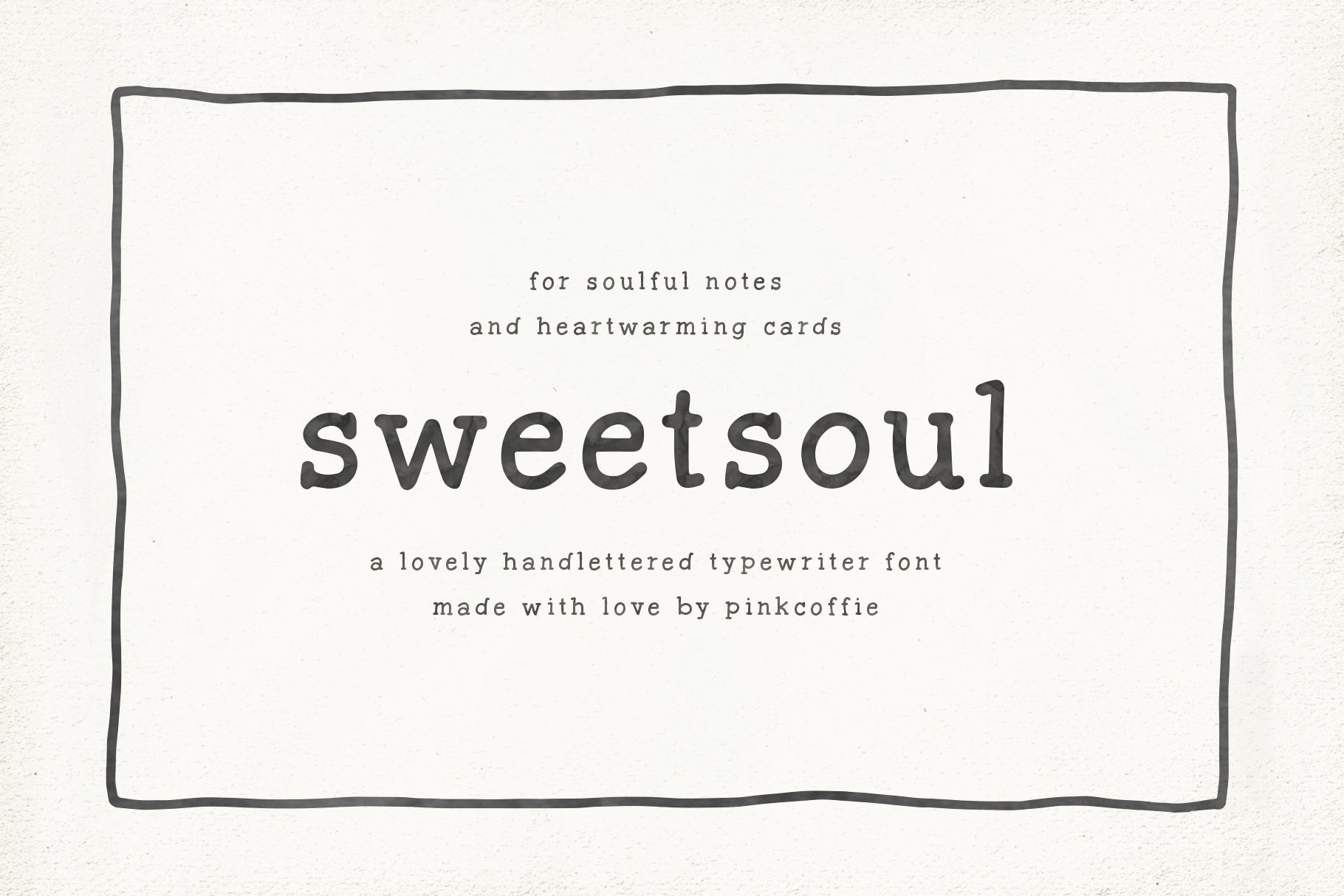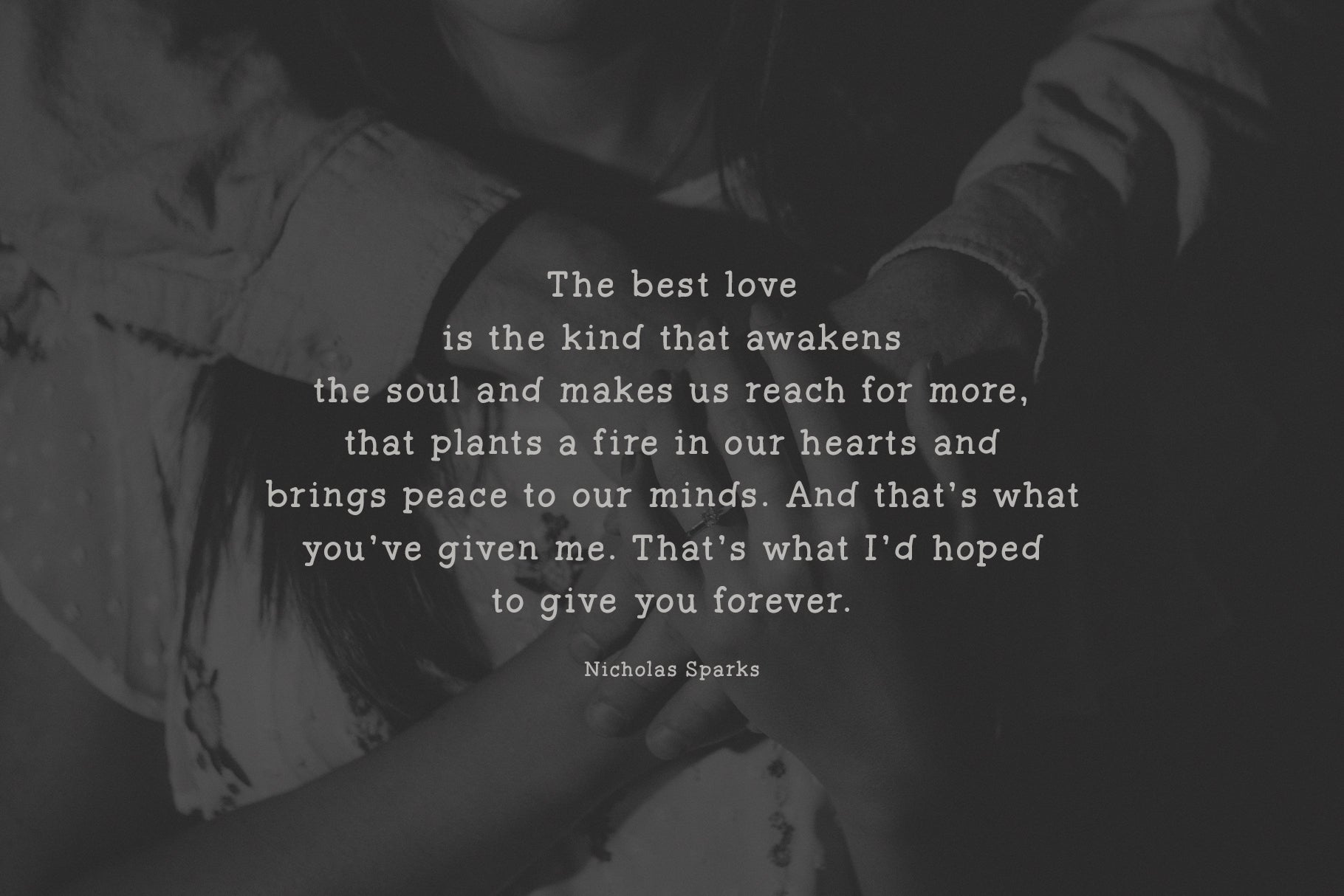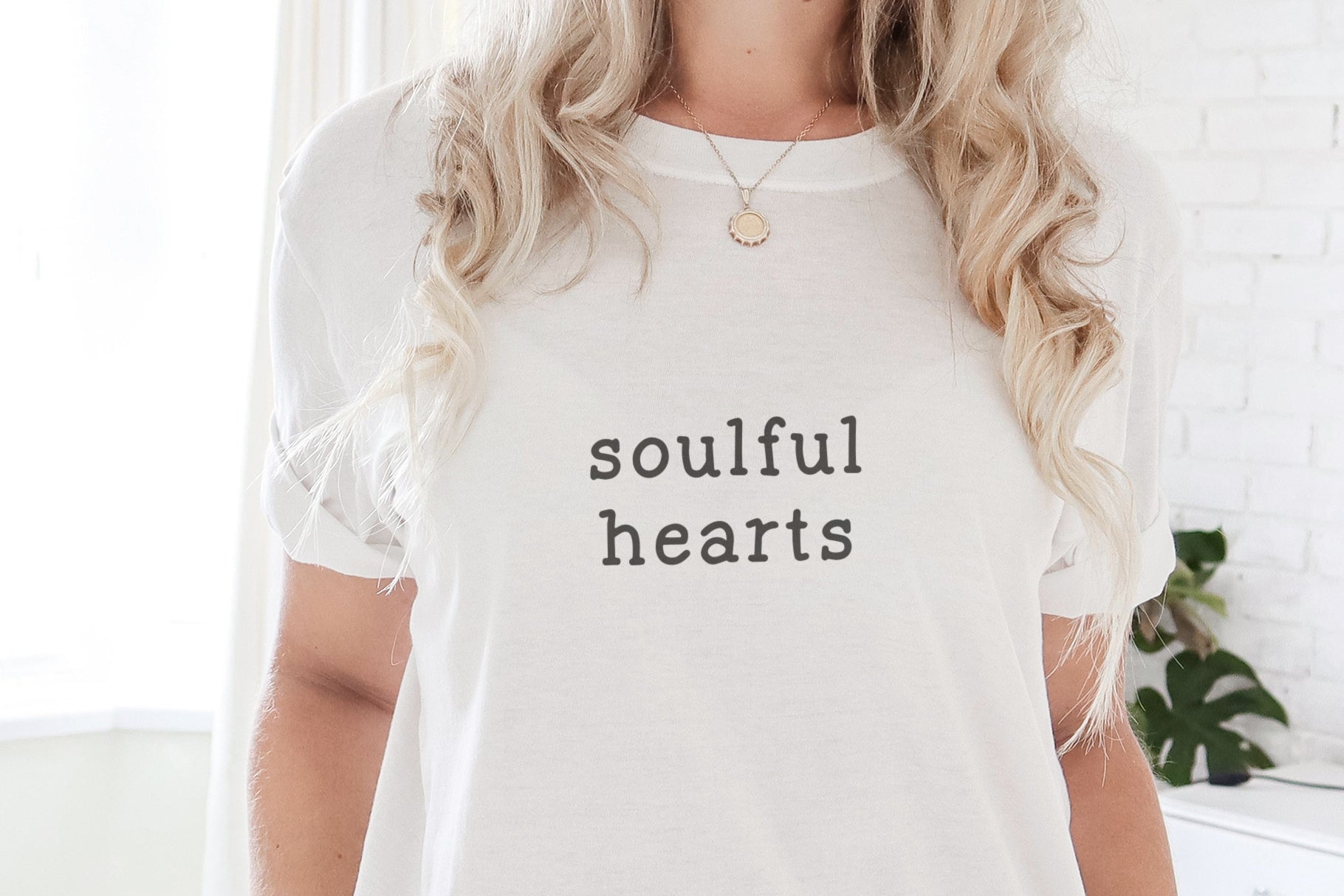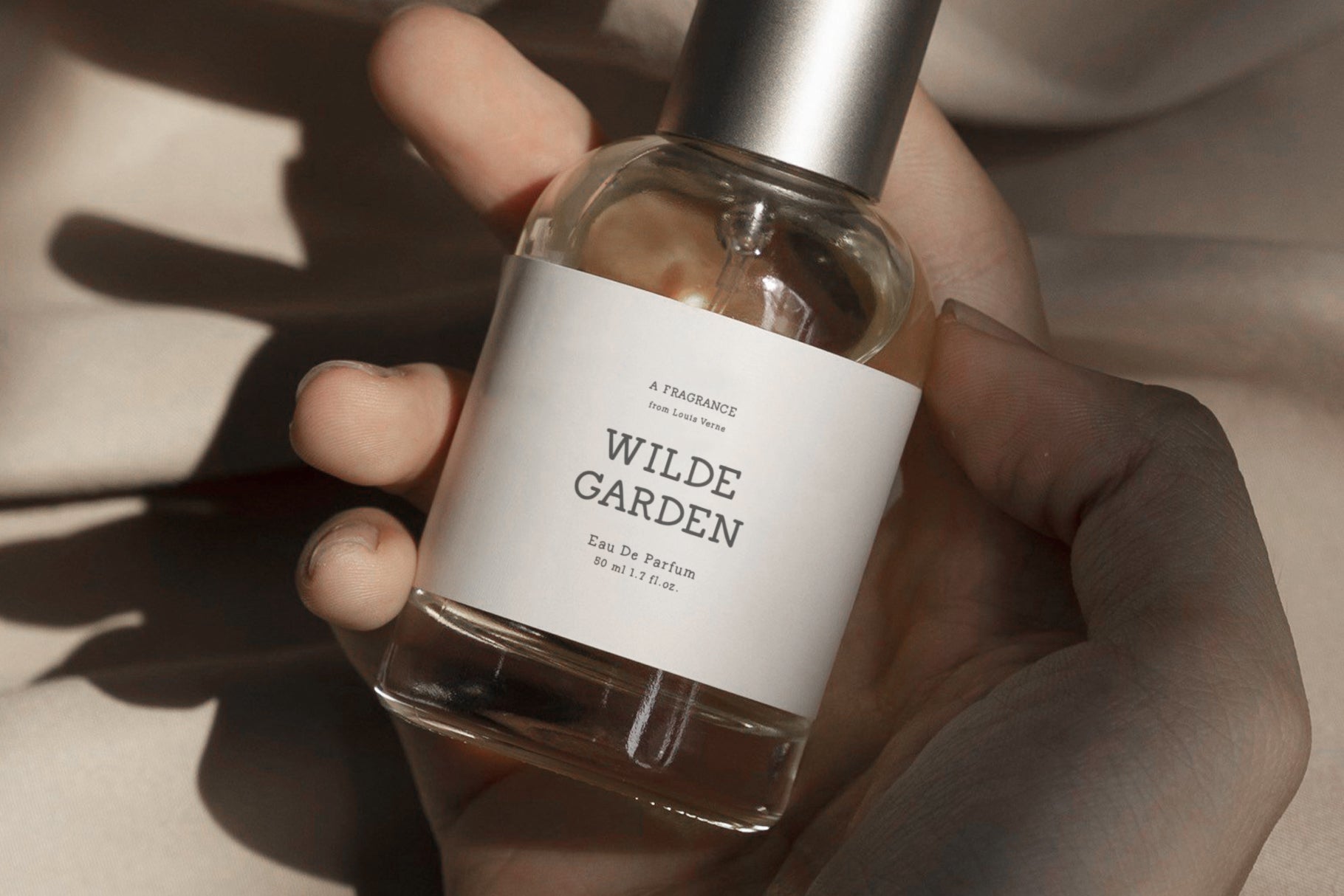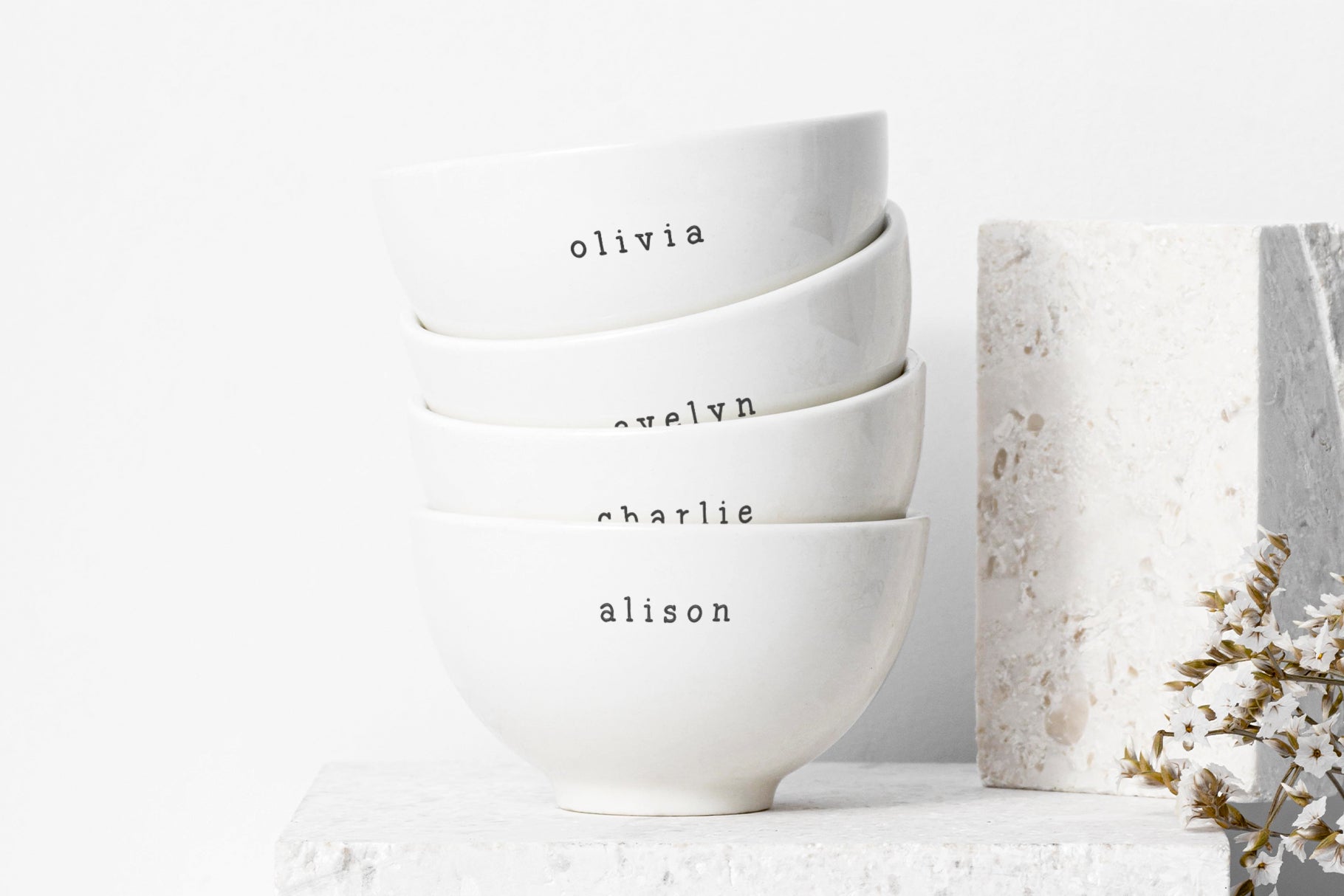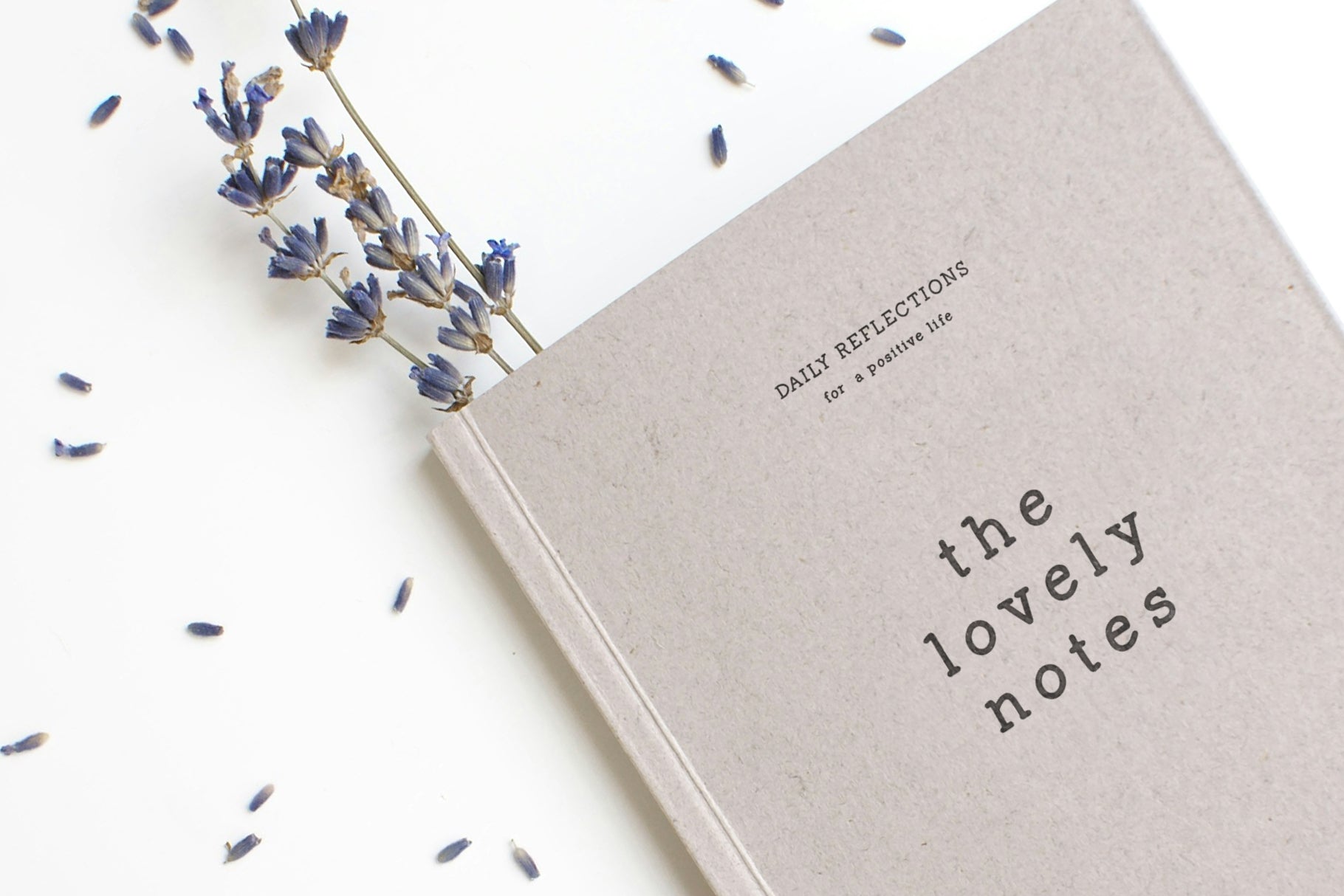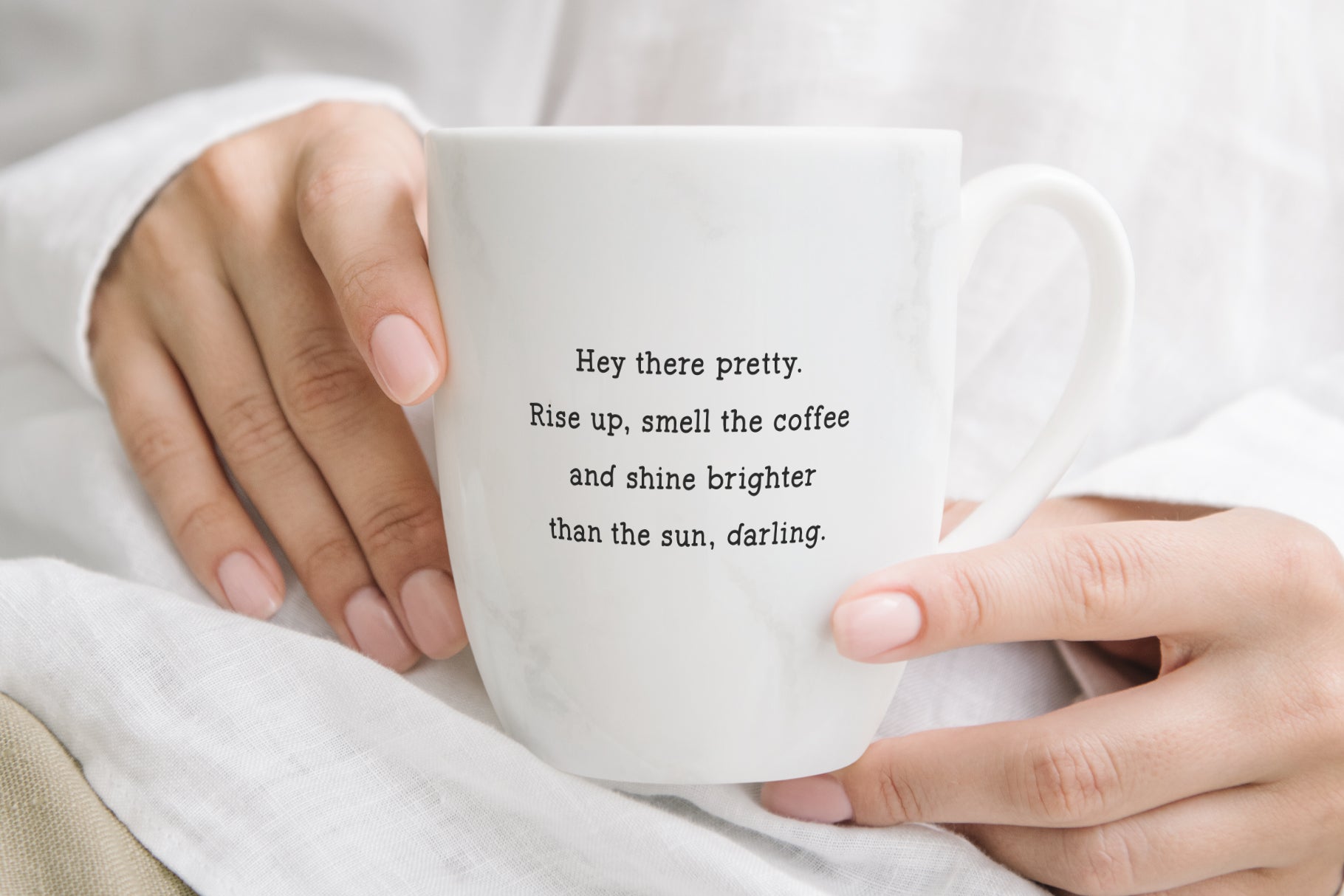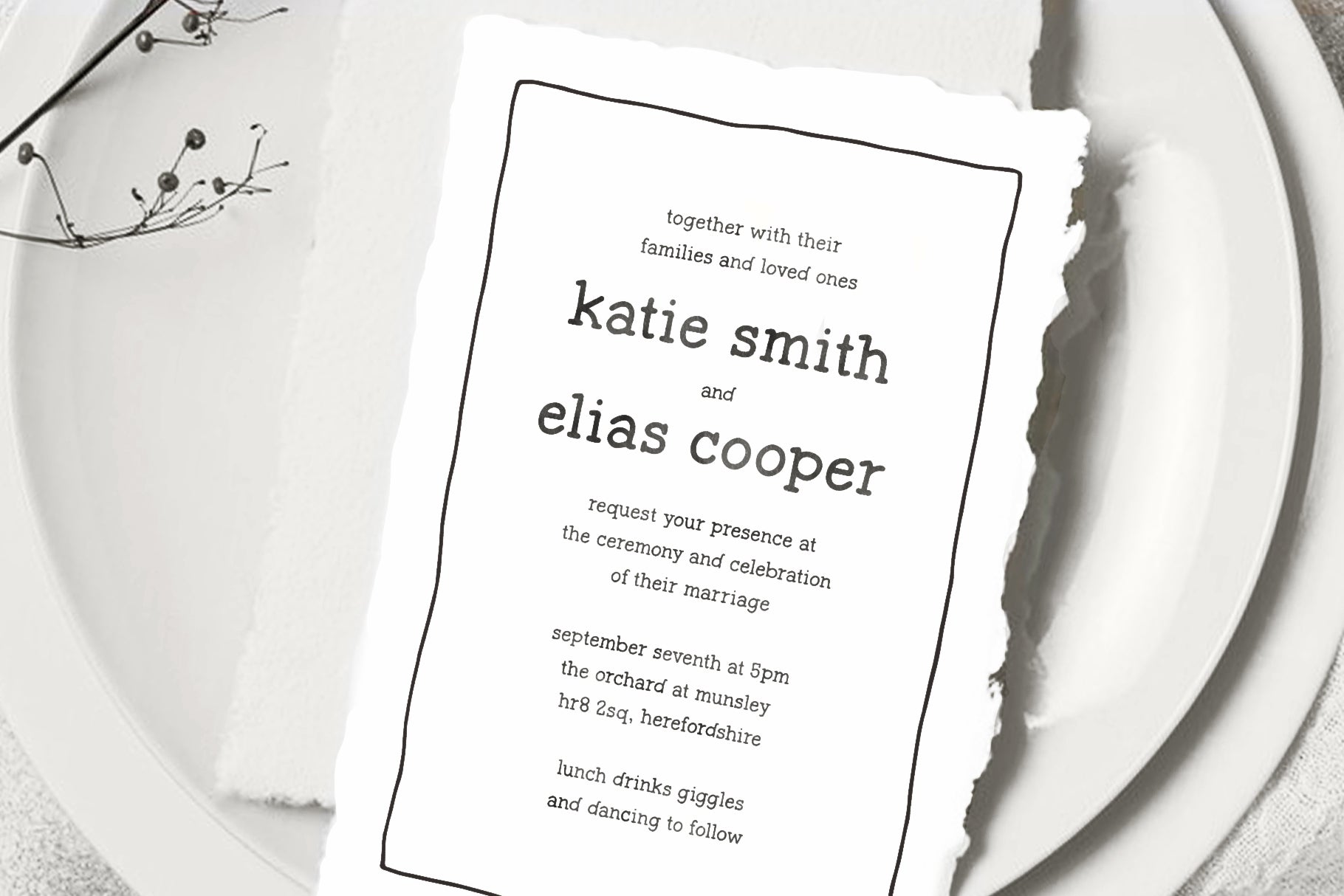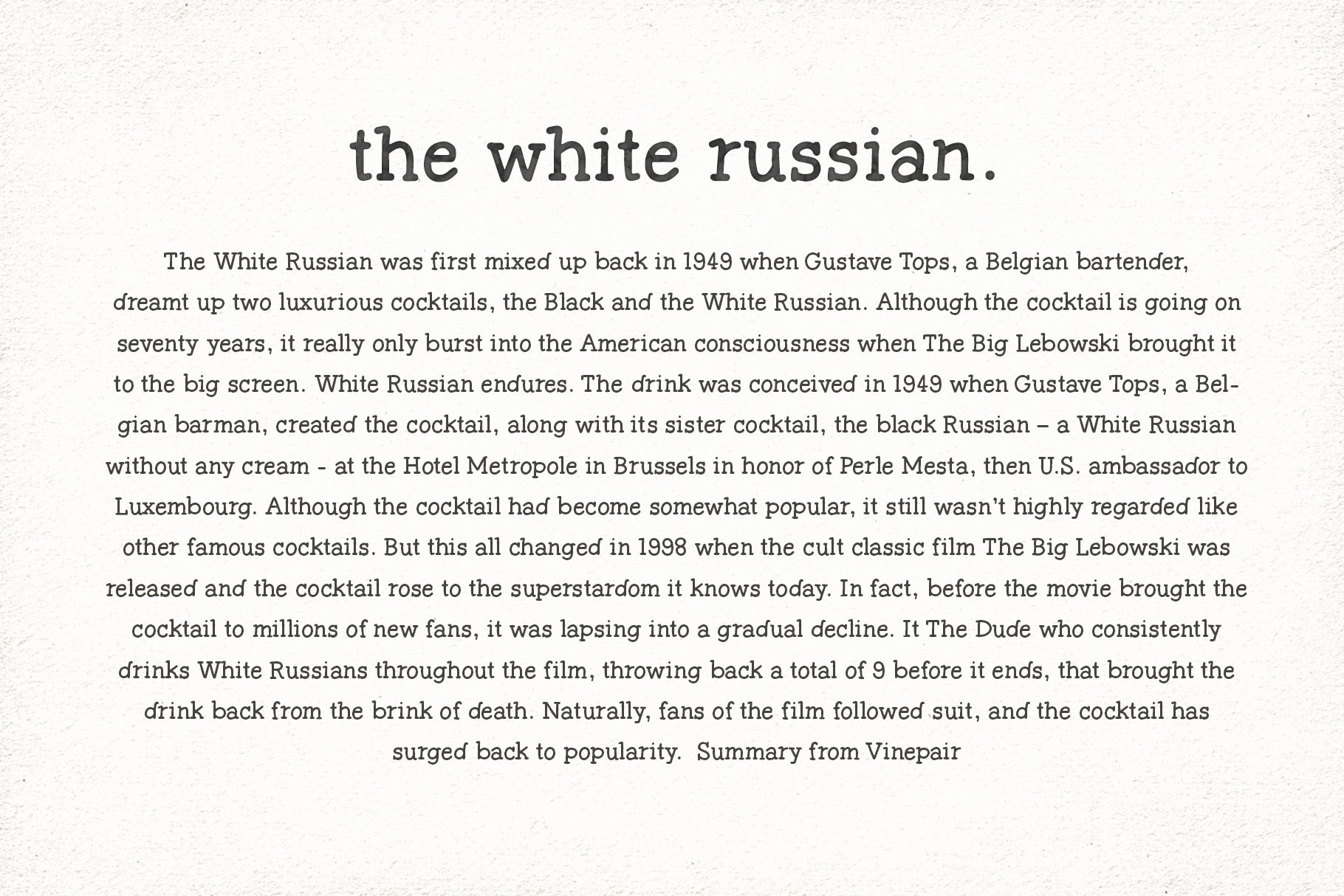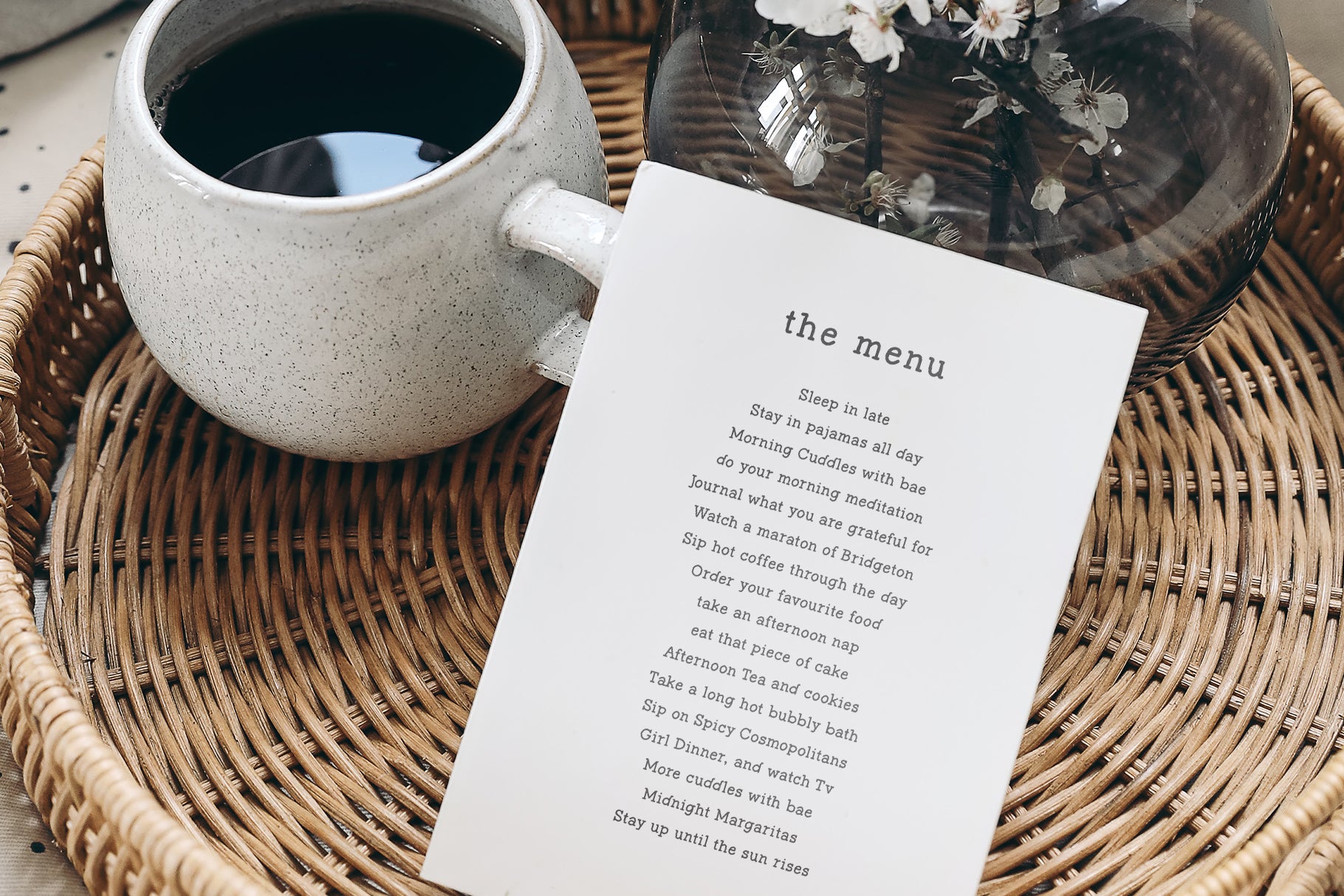
Say hello to Sweetsoul, a lovely, cute handwritten typewriter serif font inspired by vintage poetry finds, romantic typewriter letters, handmade ceramics, farmhouse aesthetics, and nostalgic wedding invitations. xx
This little handmade gem includes all the standard uppercase, lowercase, symbols, and numerals, as well as multilingual support to cover your worldwide creative projects.
Sweetsoul is super versatile and can be used for a variety of projects such as websites and themes, digital notes, planners, wedding invitations, farmhouse decor, handmade ceramics, art prints, tattoos, apparel, packaging, labels, greeting cards, stickers, printables, blog themes, social media graphics, logos, branding, books, candle labels, posters, and much much more!